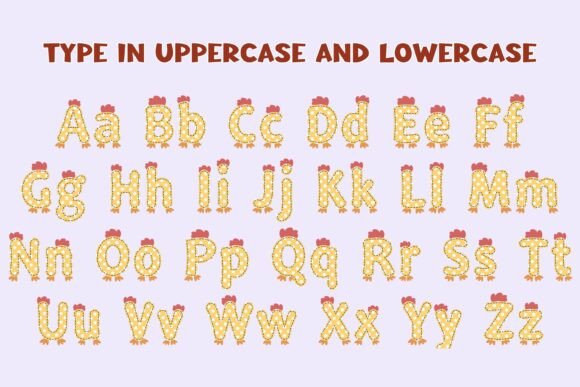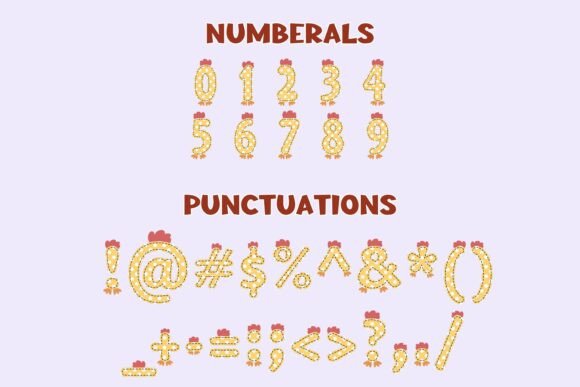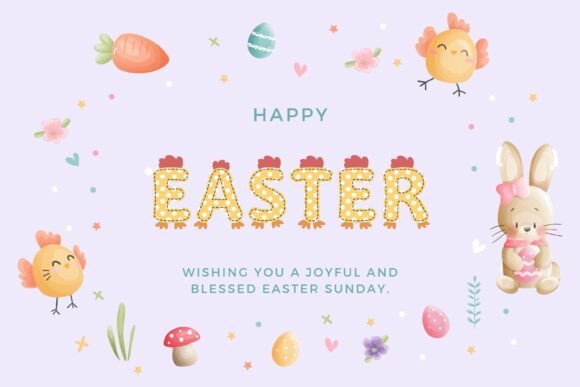
Little Easter Chick Font – Free Download
Introduction to Little Easter Chick Font
Introducing “Little Easter Chick” a color font that will look fantastic on all your project designs, including t-shirt designs, mug designs, digital designs, crafts, cards, and a variety of other projects.
| 📌 Product Name | Little Easter Chick Font |
| 👤 Author | Adalin Digital |
Introducing “Little Easter Chick” a color font that will look fantastic on all your project designs, including t-shirt designs, mug designs, digital designs, crafts, cards, and a variety of other proj
Key Features of Little Easter Chick Font
Why Choose Little Easter Chick Font?
Little Easter Chick Font offers exceptional quality and versatility, making it a valuable addition to your design toolkit. Whether you’re creating for personal projects or commercial use, Little Easter Chick Font delivers professional results.